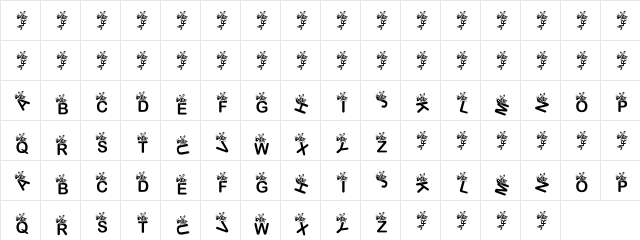
JLR Bizzy Beez Regular Font Preview
JLR Bizzy Beez Regular
JLR Bizzy Beez Regular Font Details
Design Context for JLR Bizzy Beez Typeface
JLR Bizzy Beez is a composed and adaptable typeface that performs quietly and consistently across a wide range of design contexts.